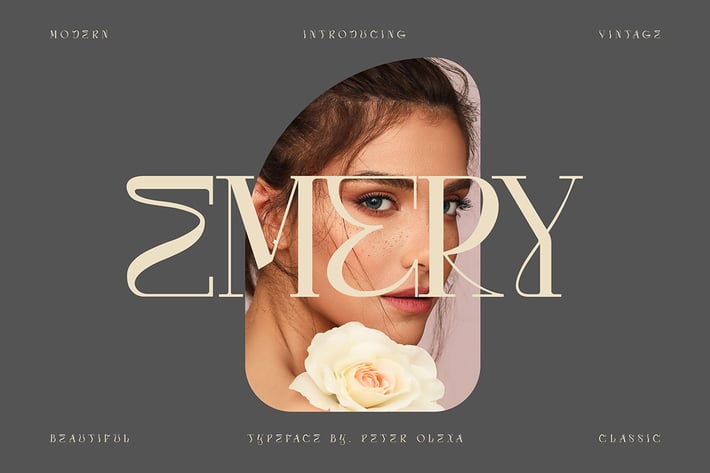
Emery - Modern Serif Font
Trendy, unique & modern style slab serif font for your fancy projects. Elegant, funny and artitsic style on Emery font will be great for any branding project. Enjoy :)
- Great for modern branding projects!